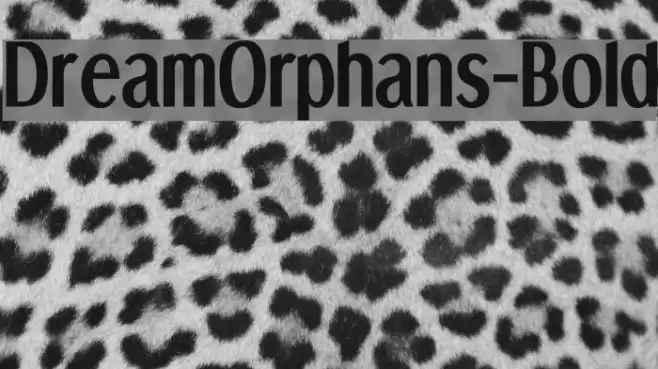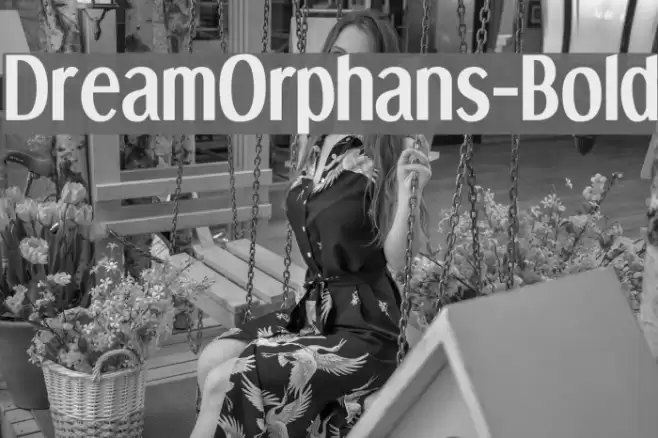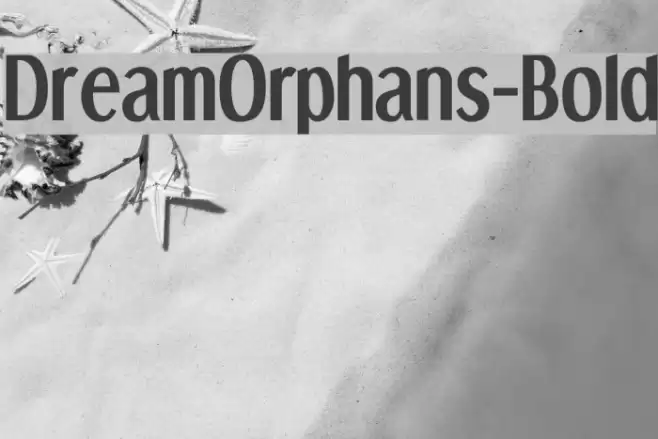
DreamOrphans-Bold Font
DreamOrphans-Bold Description
This font features a bold and striking appearance, characterized by its thick strokes and high contrast between thick and thin lines. The uppercase letters are tall and commanding, while the lowercase letters maintain a consistent and harmonious flow. The numerals are clear and easily distinguishable, making them suitable for various applications. Special characters are designed with the same boldness, ensuring they stand out in any context. The overall style is modern with a touch of classic elegance, making it versatile for both digital and print media.
A bold, high-contrast font with a modern yet classic style from Uncategorized fonts.
- Proposed Projects: Ideal for headlines, posters, branding, and advertising materials where a strong visual impact is desired.
- Contrast: High